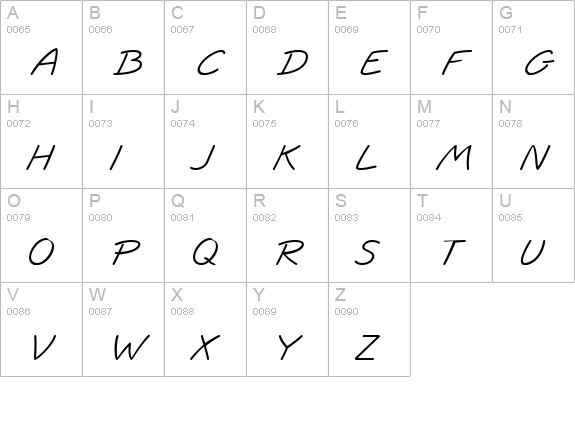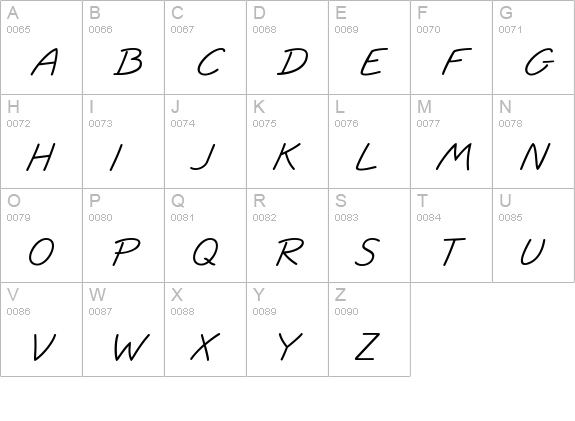
Informa SSi Italic is a distinctive, italic variant in the Informa typeface family \xE2\x80\x94 well suited to design and typography projects.
Informa SSi Italic is a modern and stylish font that exudes elegance and sophistication. Its sleek and slanted letterforms add a touch of visual interest and create a sense of movement. This italic variant of the Informa SSi font family adds a unique flair to any design project, whether it be for print or digital media. With its clean lines and graceful curves, Informa SSi Italic is perfect for adding emphasis or a touch of drama to your text. It captures attention and draws the eye, making it ideal for headings, titles, or highlighting important information. One of the most appealing features of this font is that it is freely available to download at FontsMarket.com. This means that you can easily access Informa SSi Italic and incorporate it into your designs without any cost. Whether you are a professional designer or a hobbyist, having access to quality fonts can greatly enhance your creative projects. The versatility of Informa SSi Italic is another reason to love it. It can be paired with other fonts from the Informa SSi font family or used on its own, depending on the desired effect. This font is compatible with various design software and can be easily adjusted to suit your needs. Whether you are designing a logo, creating a poster, or crafting a website, Informa SSi Italic is a reliable choice that will elevate your designs to new heights. Its timeless appeal and free availability make it a must-have font that should not be overlooked. So, why wait? Download Informa SSi Italic now at FontsMarket.com and unlock a world of creative possibilities.